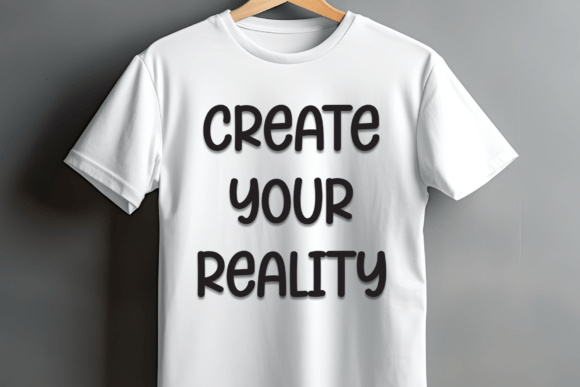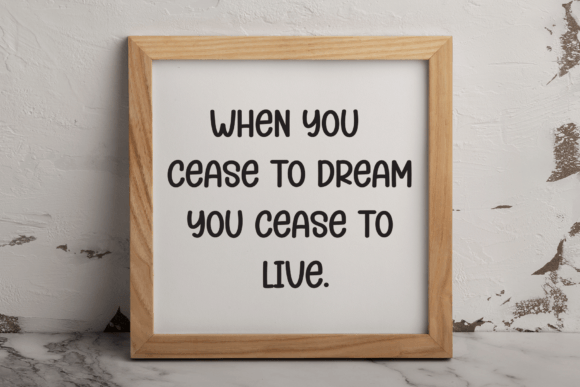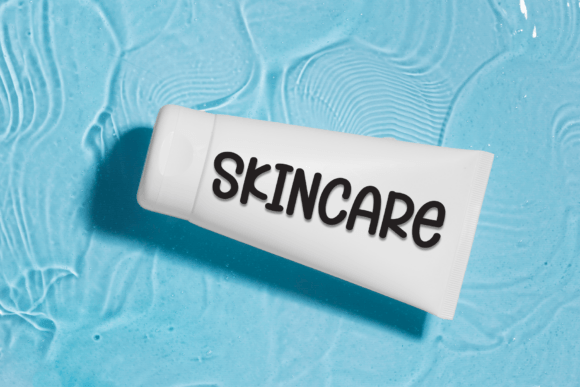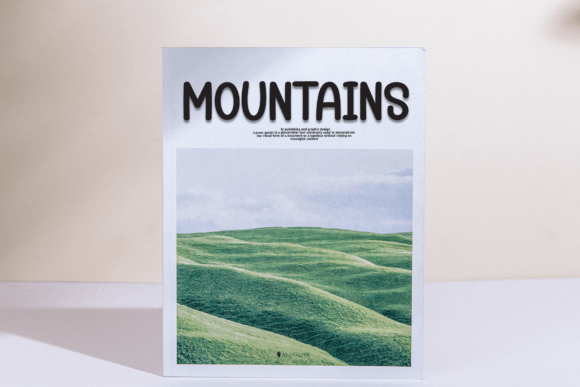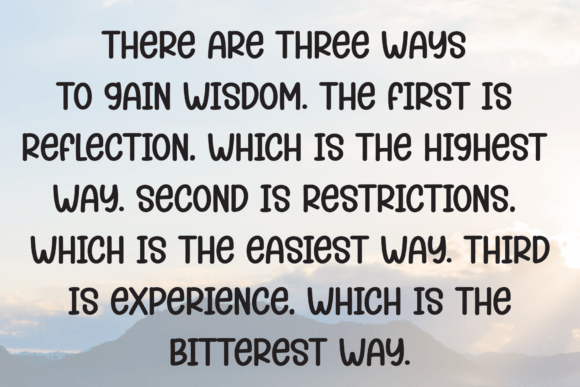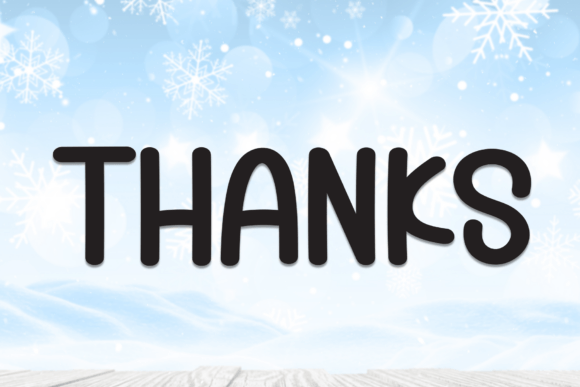
Introducing Back Winter Font: A Charming Handwritten Display Font
Are you tired of using the same old fonts in your designs? Look no further! We’re excited to introduce Back Winter Font, a charming and pleasant handwritten display font that’s sure to add a touch of warmth and conviviality to your projects. With its unique personality and playful vibe, this typeface is perfect for designers and crafters looking to infuse their work with a delightful touch.
A Font that Spills Warmth and Conviviality
Back Winter Font is a handwritten display font that’s designed to evoke feelings of joy and friendliness. Its strokes are smooth and flowing, with a subtle irregularity that gives it a delightfully human touch. Whether you’re creating wedding invitations, greeting cards, or any other design that needs a personal touch, this font is sure to deliver. Its warm and convivial personality makes it perfect for projects that require a sense of approachability and affection.
Bursting with Unique Personality
What sets Back Winter Font apart from other fonts is its unique personality. It’s not just a font – it’s a statement piece that can elevate your designs and make them stand out. With its bold and expressive strokes, this font is sure to add a touch of whimsy and fun to your projects. Whether you’re designing for a client or working on a personal project, Back Winter Font is the perfect choice for anyone looking to add some personality to their work.
Wedding invitations and greeting cards are special occasions that deserve a font that’s just as special. Back Winter Font is the perfect choice for these types of projects, as it adds a touch of elegance and sophistication while still being playful and fun. Its smooth strokes and rounded edges give it a soft, romantic feel that’s sure to delight. Whether you’re designing a wedding invitation or a birthday card, this font is sure to make your project stand out.
Adding a Touch of Fun to Your Designs
Back Winter Font is not just limited to wedding invitations and greeting cards. It’s perfect for any design that needs a touch of fun and whimsy. Whether you’re creating a logo, a poster, or a social media graphic, this font is sure to add a playful touch that will engage your audience. Its bold and expressive strokes make it perfect for headlines and titles, while its smooth flowing lines make it great for body text.
Why Choose Back Winter Font?
So why choose Back Winter Font over other fonts? Here are just a few reasons why this font stands out:
- Unique personality: Back Winter Font has a unique personality that’s sure to make your designs stand out.
- Warm and convivial: This font is designed to evoke feelings of warmth and conviviality, making it perfect for projects that require a personal touch.
- Playful and fun: Back Winter Font is perfect for designs that need a touch of fun and whimsy.
- Versatile: This font is versatile and can be used for a wide range of projects, from wedding invitations to social media graphics.
In conclusion, Back Winter Font is a charming and pleasant handwritten display font that’s sure to add a touch of warmth and conviviality to your designs. With its unique personality, playful vibe, and versatile nature, this font is perfect for designers and crafters looking to infuse their work with a delightful touch. Whether you’re creating wedding invitations, greeting cards, or any other design that needs a personal touch, Back Winter Font is the perfect choice.